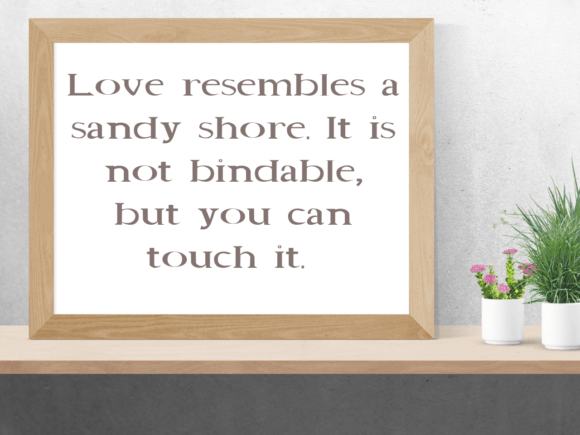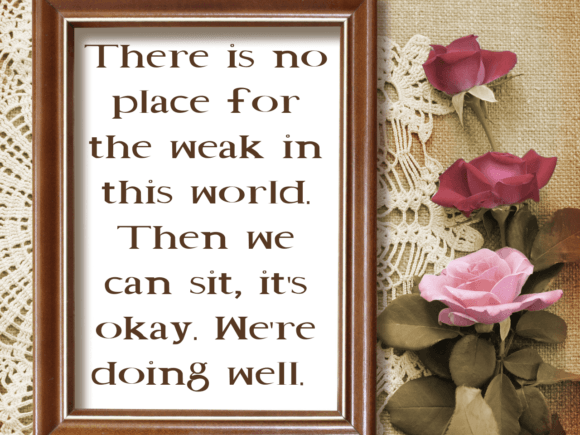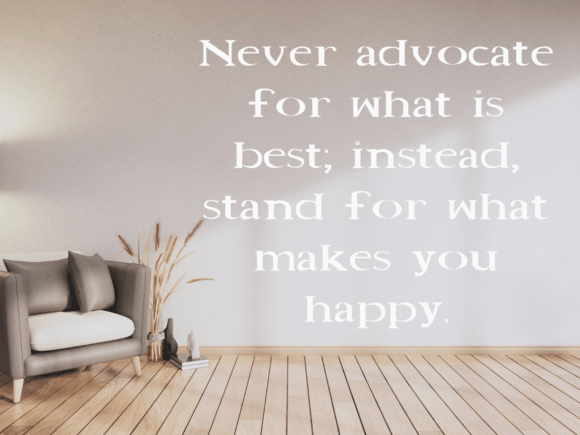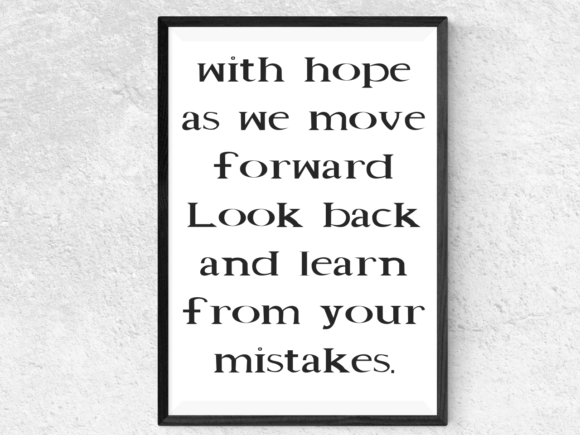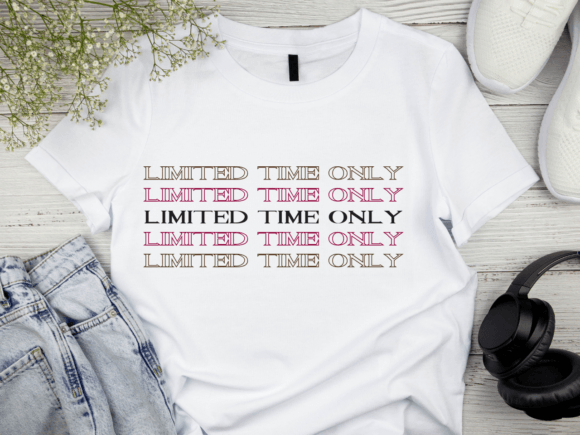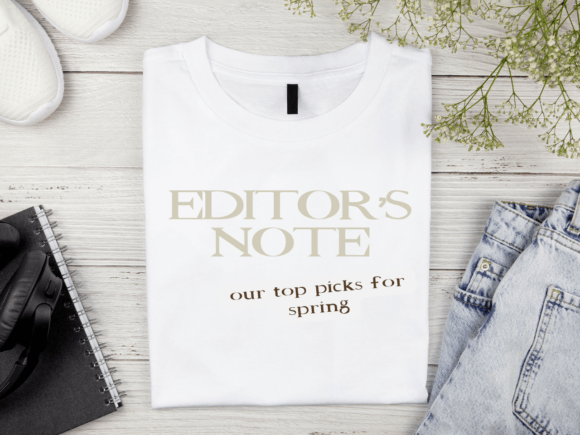
Introduction to Marinqa Font
Have you ever been working on a creative project, pouring your heart and soul into it, only to feel like something’s missing? Maybe it’s the perfect image, the right color palette, or a font that truly captures the essence of your design. For many designers, finding that one special font can make all the difference between a good design and a great one. This is where the Marinqa Font comes in – a unique and angular font that adds a touch of distinctiveness to any project.
With its high-quality design and transparent background, the Marinqa Font is a valuable resource for designers looking to elevate their work. Whether you’re creating greeting cards, wedding invitations, or simply want to add a touch of creativity to your letters, this font is sure to impress. And the best part? It’s available for free download, making it an accessible design resource for anyone looking to take their creative project to the next level.
Key Features of Marinqa Font
- Transparent background, allowing for seamless integration into various design applications.
- Available in 1 style with a standard font size and resolution suitable for professional use.
- Marinqa Font is a versatile design tool, suitable for a wide range of creative projects, from digital art to print materials.
Honest Review: Marinqa Font
I recently had the opportunity to work with the Marinqa Font, and I must say, it’s been a game-changer for my creative projects. This font is a high-quality design resource that I would highly recommend to anyone looking to elevate their work.
- ✨ The Marinqa Font is incredibly versatile and can be used for a wide range of creative projects, from branding and marketing materials to digital products and web design.
- ✨ The font is highly customizable, allowing you to easily adjust the size, color, and style to fit your design needs.
- ✨ The transparent background feature is a great bonus, making it easy to layer the font over images and other design elements.
- ⚠️ While the Marinqa Font is a high-quality design resource, it’s not compatible with all design software, which can be a limitation for some users.
Overall, I’m thoroughly impressed with the Marinqa Font and would highly recommend it to anyone looking for a high-quality design resource. Its versatility, customizability, and transparent background feature make it a valuable asset for any creative project.
Tips for Getting the Most Out of Marinqa Font
Marinqa Font is ideal for use in creative projects such as brochures, flyers, and business cards. Its high-quality design and transparent background feature make it a popular choice among designers. You can also use Marinqa Font to create a professional-looking logo or branding element for your business.